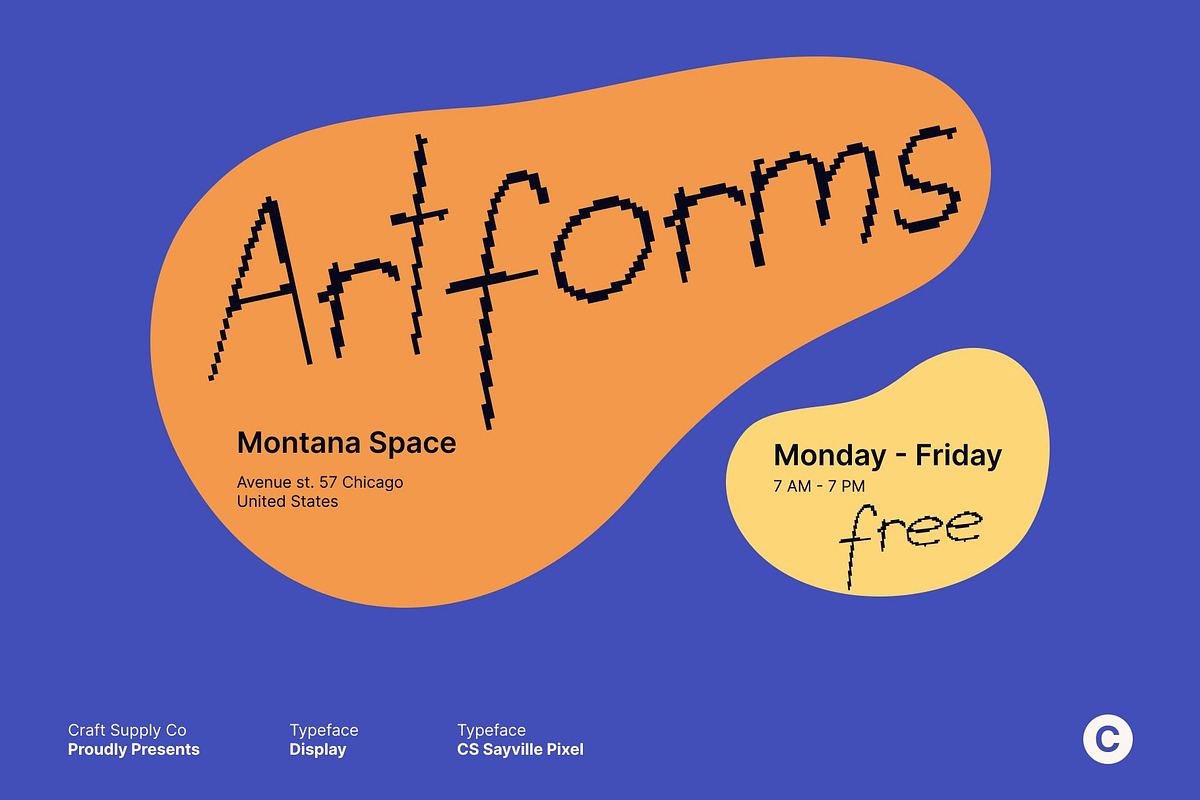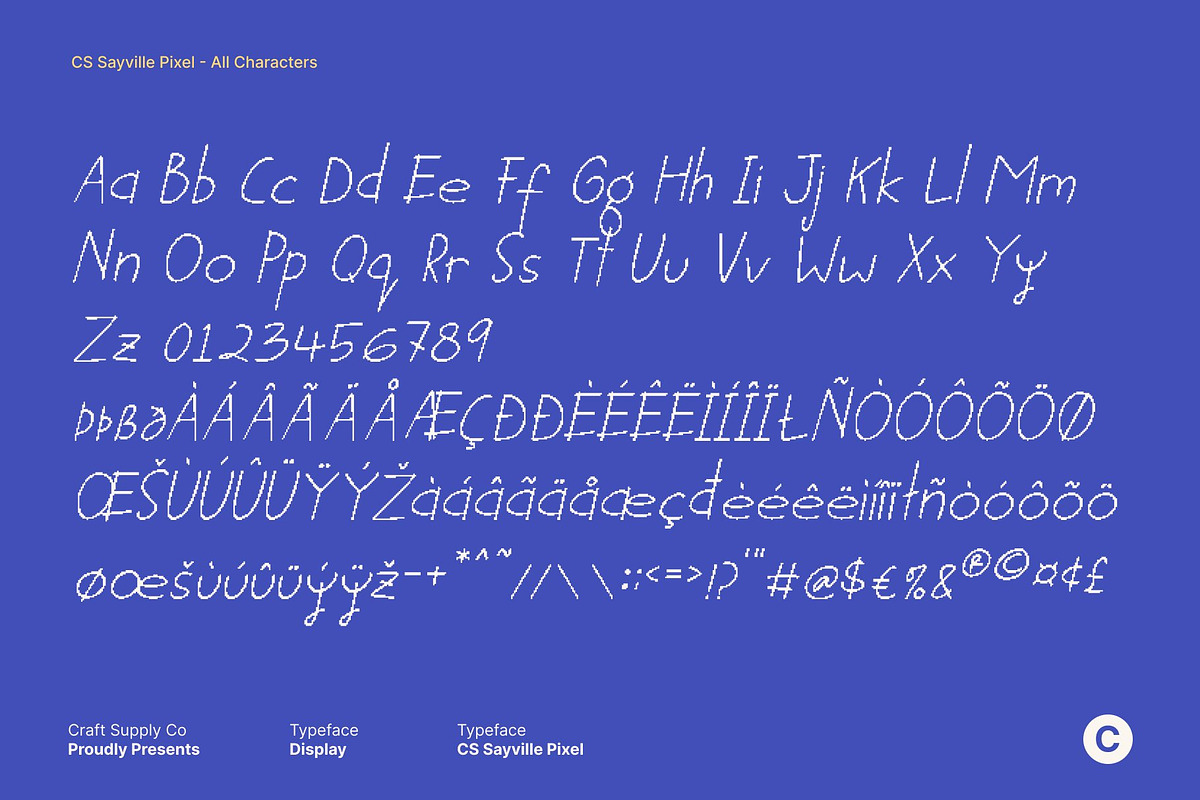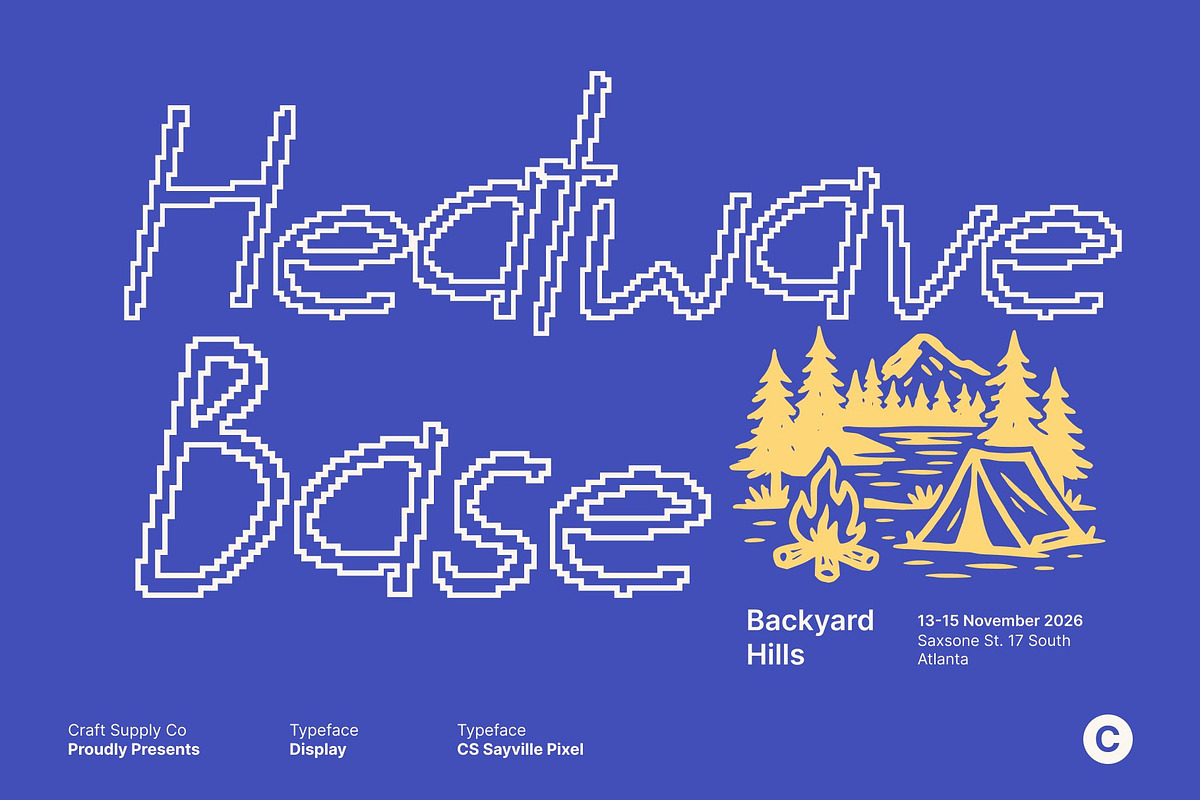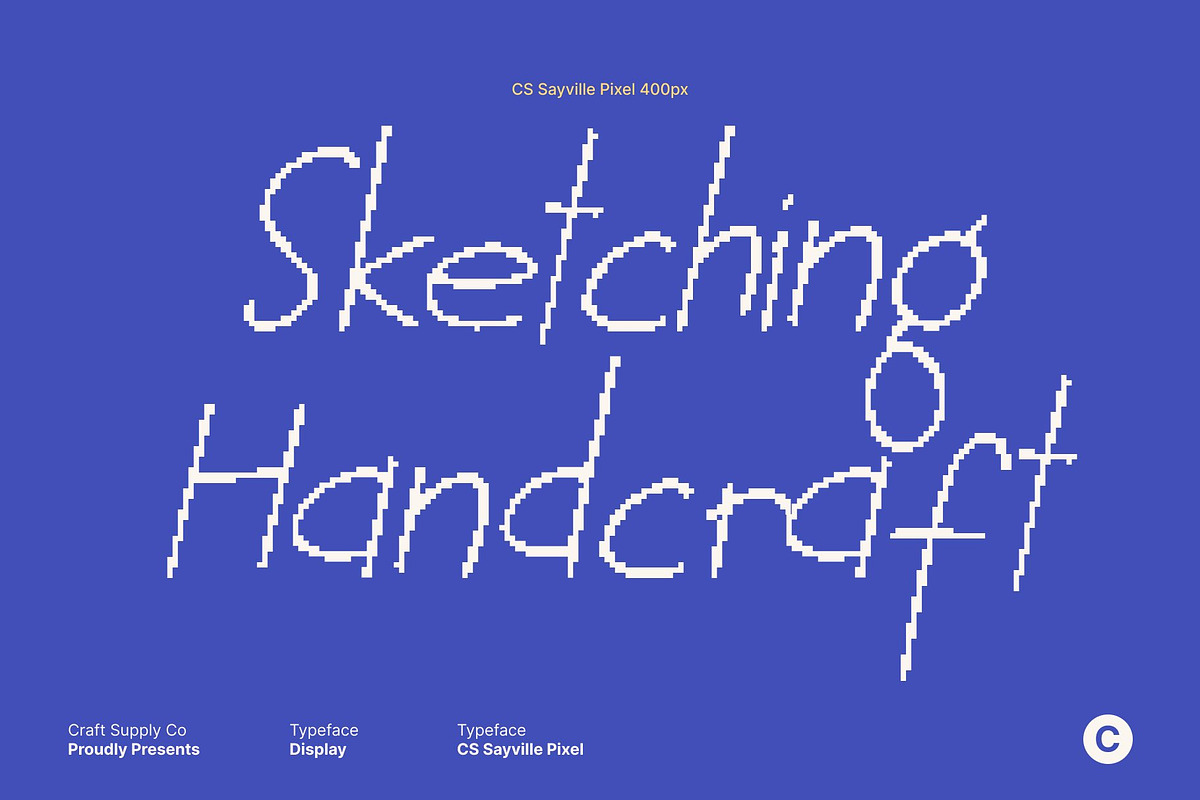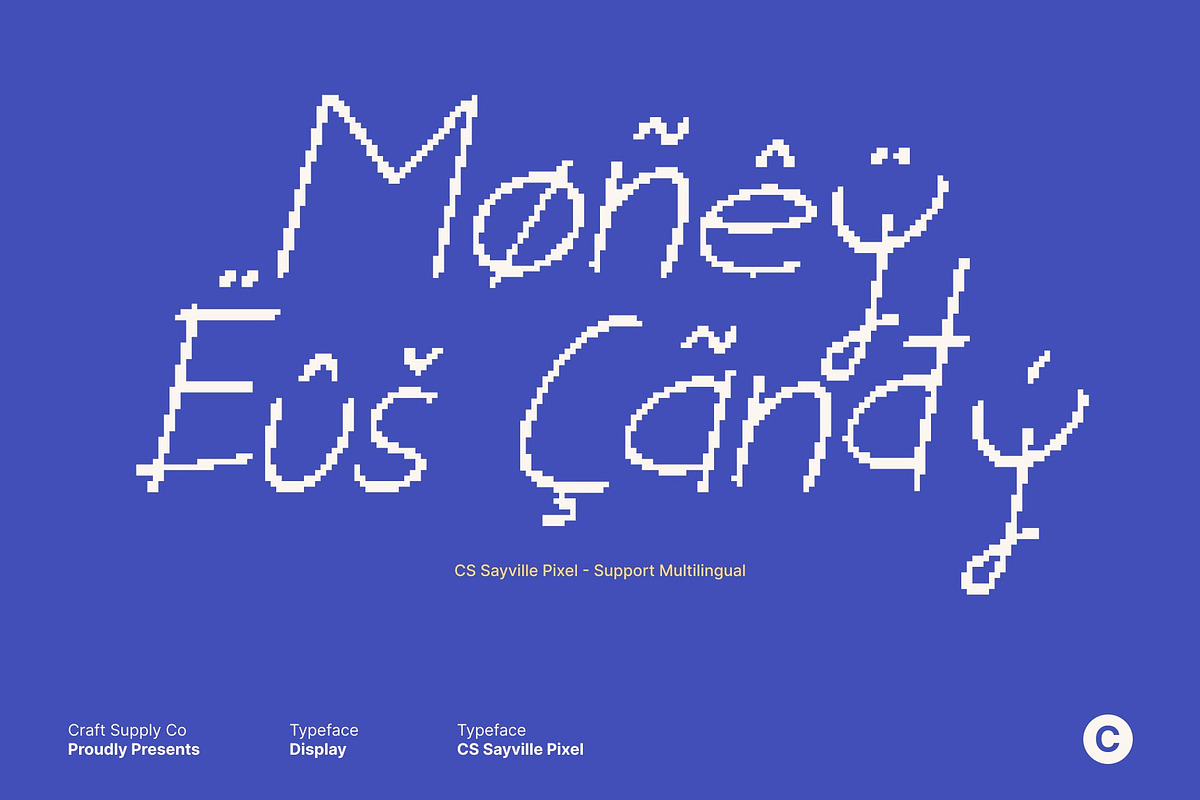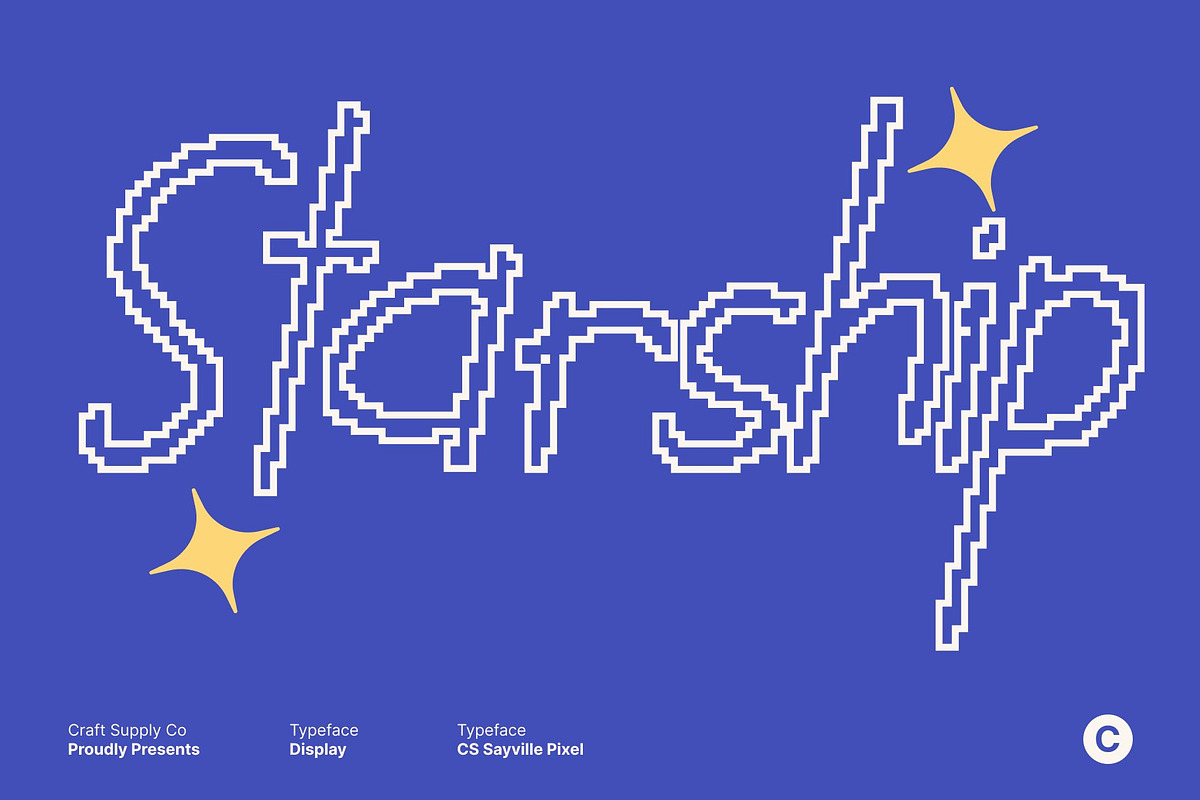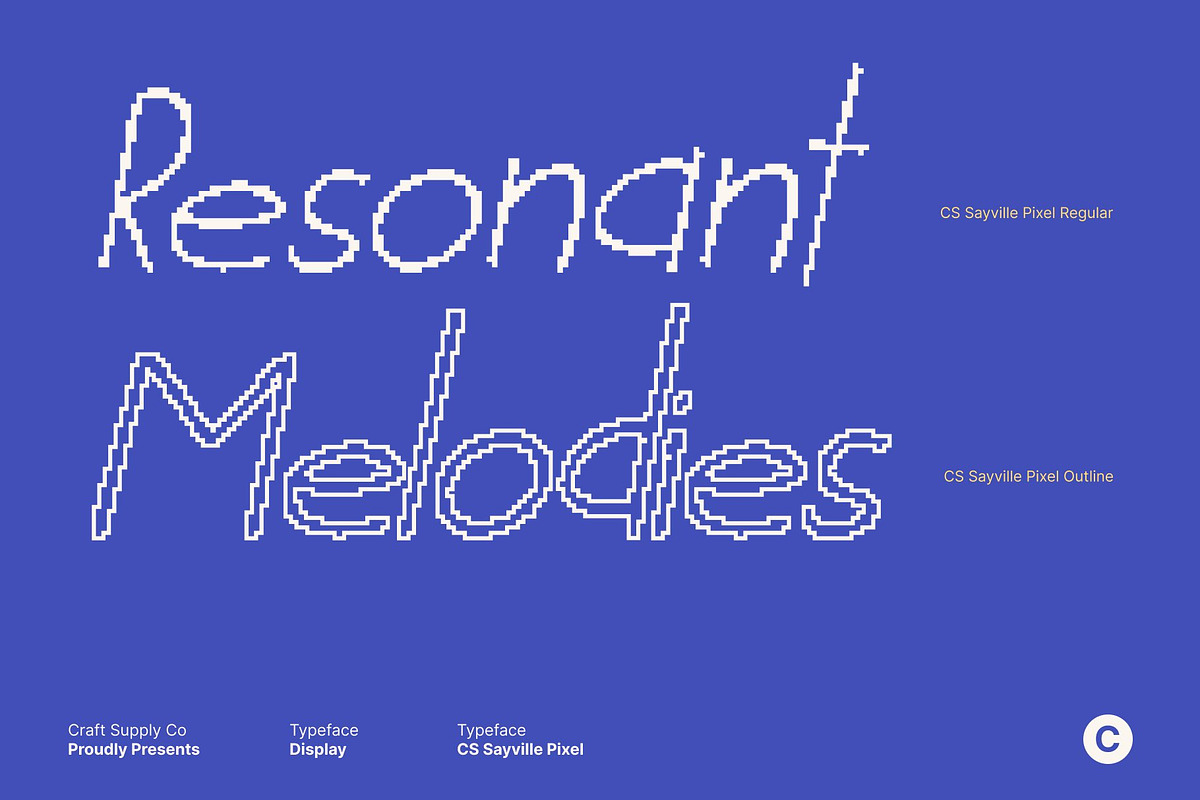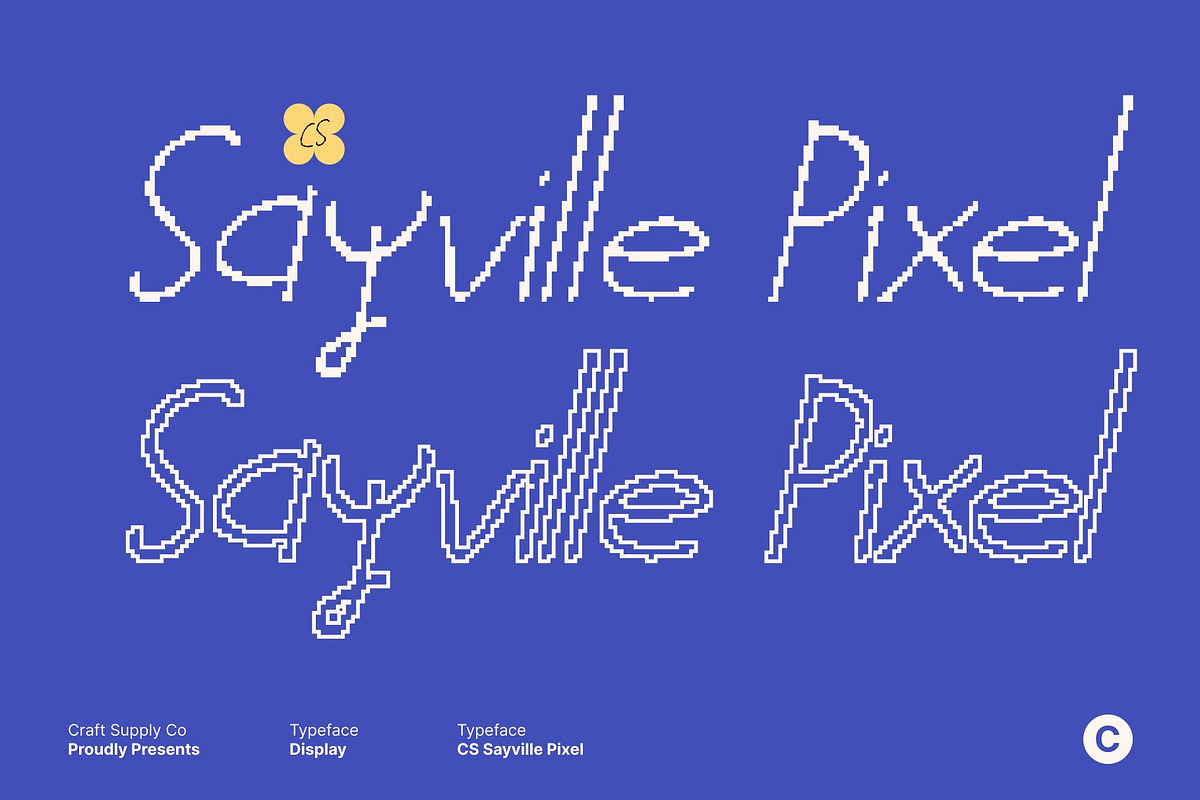
CS Sayville Pixel
CS Sayville Pixel – Casual Sweetness in Crisp Digital Form
Handwriting Sans with Pixel Personality This reimagines a handwriting-inspired sans serif through a structured pixel grid. The casual flow and soft curves are translated into clean, blocky forms, creating a charming balance between sweet informality and digital precision. It feels warm and approachable, yet distinctly rooted in retro screen aesthetics.
Modern Clarity with Retro Edge Built with pixel-based geometry, this font maintains strong readability while embracing an old-technology character. Its modular construction gives it that nostalgic 8-bit and early computer feel, while the handwritten influence keeps it from feeling rigid or mechanical. The result is friendly, clear, and unmistakably eye-catching on digital displays.
Balanced Structure for Clean Legibility Even with its playful personality, preserves clarity at various sizes. The thoughtful spacing and simplified pixel forms ensure that every word remains sharp and readable, whether used in bold headlines or short expressive phrases.
Perfect for Retro Branding and Digital Creativity This font shines in pixel-art graphics, indie game interfaces, nostalgic branding, posters, packaging, and social media visuals. It pairs beautifully with vibrant palettes, UI-inspired layouts, and vintage tech themes that celebrate classic digital culture.
- CS Sayville Pixel Regular
- CS Sayville Pixel Outline